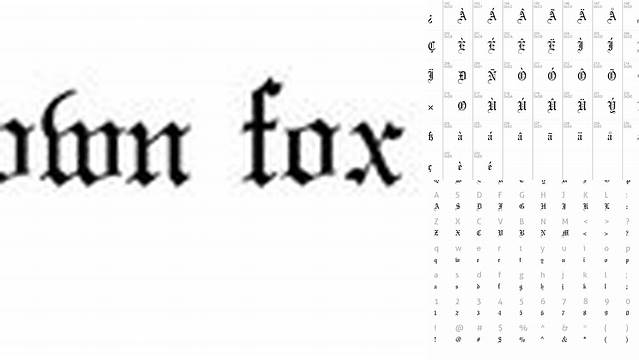
Wedding Text STD Font: Free Download & Design Tips
Wedding Text STD Regular Font: Free Download and Creative Uses
Hey everyone! Planning a wedding is a whirlwind, right? One of the million things on your to-do list is, of course, the invitations and save-the-dates. And what's a save-the-date without some awesome text? That's where the Wedding Text STD Regular font comes in. You can find it for free download and it's a total game-changer when it comes to designing your wedding stationery. Let's dive in and see why this font is so cool and how you can use it to make your wedding announcements pop. First off, this font is designed to bring elegance and clarity to your invitations. It's not overly flashy, which means your message – the important details of your big day – remain the focus. But it’s also not boring; it has a subtle charm that fits perfectly with the joyous occasion of a wedding. This font is super readable, which is crucial. You don't want your guests squinting to figure out when and where the party is! Being easy to read also allows you to use it in various sizes, from headings to body text, ensuring consistency across your wedding suite. The best part? You can usually find Wedding Text STD Regular available for free download from several font websites. This is a huge win because it means you can access a professional-looking font without blowing your budget. Using a font like this is a great way to get a high-quality aesthetic for your invitations, save-the-dates, and other wedding materials. So, how exactly can you utilize this font? For starters, use it for the names of the happy couple, the date, and the location. Its clean lines and classic style make these critical pieces of information stand out. Think about the design of your stationery: you might combine it with a script font for a more elegant look. Also, consider the paper stock you'll use. A good quality paper will help the font look even more professional. It is designed to complement a variety of design styles, from simple and modern to classic and vintage, which means you can create stationery that reflects your personal taste. Finding the right font can really set the tone for your entire wedding.
Creative Ways to Use Wedding Text STD Regular in Your Wedding Designs
Okay, so you've got the Wedding Text STD Regular font downloaded, now what? Let’s get those creative juices flowing! This font can be used in so many ways. Don’t be afraid to experiment and see what looks best for your unique wedding style. First, let's talk about save-the-dates. These are the first glimpse your guests will get of your wedding theme, so make sure they are eye-catching. Use the font for the essentials: your names, the date, and the location. Consider adding a subtle graphic, such as a heart or floral element, to complement the font. For invitations, the font can be used to highlight the key information: the date, time, location, and RSVP details. Mix and match it with other fonts, such as a delicate script font, to add visual interest. You could also incorporate it into your wedding website, where you can use the font for headings and subheadings to create a cohesive look across all your wedding materials. The font can also be used on your wedding programs. Make the ceremony details easy to read and visually appealing by using the font for the order of events, readings, and names of the wedding party. Even the reception materials can benefit from the font. Use it for signage, such as welcome signs, seating charts, and menu cards, maintaining a consistent style. Consider using the font for the table numbers to help create a streamlined look for your reception tables. And hey, don't forget the thank-you cards! You can use the font for the greeting or the closing, such as “Thank you” or “With love.” Also, think about using the font for any custom items, like personalized napkins or favors. By using this versatile font consistently throughout your wedding designs, you can create a unified and polished aesthetic. Don't be afraid to experiment with different layouts, colors, and paper stocks to achieve your desired look. The key is to keep it consistent and make sure the font complements your overall wedding theme.
Combining Wedding Text STD Regular with Other Fonts and Design Elements
Mixing and matching fonts can really elevate the look of your wedding stationery. The Wedding Text STD Regular font is a versatile choice that pairs well with many other styles. When combining this font with others, consider the overall tone you want to create. For an elegant and classic look, pair Wedding Text STD Regular with a script font. The script font can be used for the names, while the regular font is used for the supporting details. This combination provides a beautiful contrast and creates a sophisticated feel. If your wedding has a more modern theme, you can combine the regular font with a clean, sans-serif font. This will create a sleek and contemporary look. Make sure the fonts you choose complement each other and don't clash. One trick is to use one font for headings and another for body text. For visual interest, you can also incorporate design elements such as borders, graphics, or color. These additional elements can help to enhance the overall design and make the font more visually appealing. Think about using a simple border around your text, or incorporate a graphic element related to your wedding theme. The color scheme should complement both fonts, so choose a palette that creates a cohesive look. Don't forget about the paper stock and printing techniques. The paper choice can significantly impact the overall aesthetic of your invitations. Choose a paper that matches the style of your fonts. For example, for a classic look, you might use a high-quality paper with a smooth finish, whereas, for a rustic look, you might consider using textured paper. Consider letterpress or foil stamping, which can make your invitations look more luxurious and stand out. Experiment with different combinations and elements to find the perfect blend that suits your personal taste and wedding theme. The goal is to create a cohesive and visually appealing design that reflects your unique style.
Tips for Choosing the Right Font Size and Spacing
Okay, so you’ve got your font, but now you need to make sure it's readable and looks good on your invitations. Choosing the right font size and spacing is super important! This is especially true when using the Wedding Text STD Regular font. First off, the size. The size you use will depend on where it appears. For the names and important dates, you might use a larger size to make them stand out. For the body text, such as the location details or RSVP information, you'll want a size that's easy to read but doesn’t overwhelm the design. Start with a few different sizes and print out samples to see what looks best. Spacing matters too. Line spacing (leading) is crucial for readability. Make sure there's enough space between the lines of text so it’s easy on the eyes. Use slightly more space for body text to make it easier to read. Letter spacing (kerning) can also affect readability. Adjust the spacing between the letters, especially in the larger text, to ensure it looks balanced and visually appealing. Don’t be afraid to play with the spacing to find what suits your design. The spacing between the words also matters. Ensure a consistent amount of space between words so the text doesn’t look too crowded or too sparse. Remember to consider the paper and the printing process. Some printing methods might affect the appearance of the font size and spacing. If you’re printing at home, do a test print on the paper you'll use for your invitations before you start printing the whole batch. Test out different font sizes, spacing, and layouts to make sure your text is legible and looks great on your wedding materials. Check the appearance of the text on different devices and print it to ensure the quality is up to your standards. Proper sizing and spacing can make a world of difference in the overall look and feel of your wedding stationery.
Using Wedding Text STD Regular for Digital Invitations and Announcements
In the age of digital everything, you might be thinking about using the Wedding Text STD Regular font for digital invitations and announcements. Good idea! Digital invitations are a great way to save money and reach your guests quickly. Designing a digital invitation is similar to designing a printed one, but there are a few key things to keep in mind. First off, the format. You'll most likely be using a .jpg, .png, or PDF file for your digital invitations. If you want to make your invitation interactive, such as including clickable links, use a PDF format. Make sure that the resolution is high enough to look good on all devices, from smartphones to tablets and computers. When it comes to the font, make sure that the font is embedded in the file so the guests can see it even if they don't have the font installed on their computers. Keep the text concise and easy to read on smaller screens. Digital invitations are all about convenience. Make sure that the text is clearly visible and that the important details are easy to spot. Consider using a simple layout to avoid overwhelming your guests. Test the invitation on different devices to ensure it looks good across the board. If you're using a platform like Canva or Adobe Spark, they usually have font options that will render your text properly. Also, consider adding interactive elements such as RSVP links and links to your wedding website. To add a personal touch, you could consider a short video or a slideshow. And don't forget the importance of email subject lines! Make your subject lines catchy to ensure your guests open the invitation. Send a test email to yourself to check the appearance of the digital invitation before sending it to all of your guests. Digital invitations should be user-friendly and easy to access for all of your guests. By utilizing this font you can create digital announcements that are both elegant and accessible.